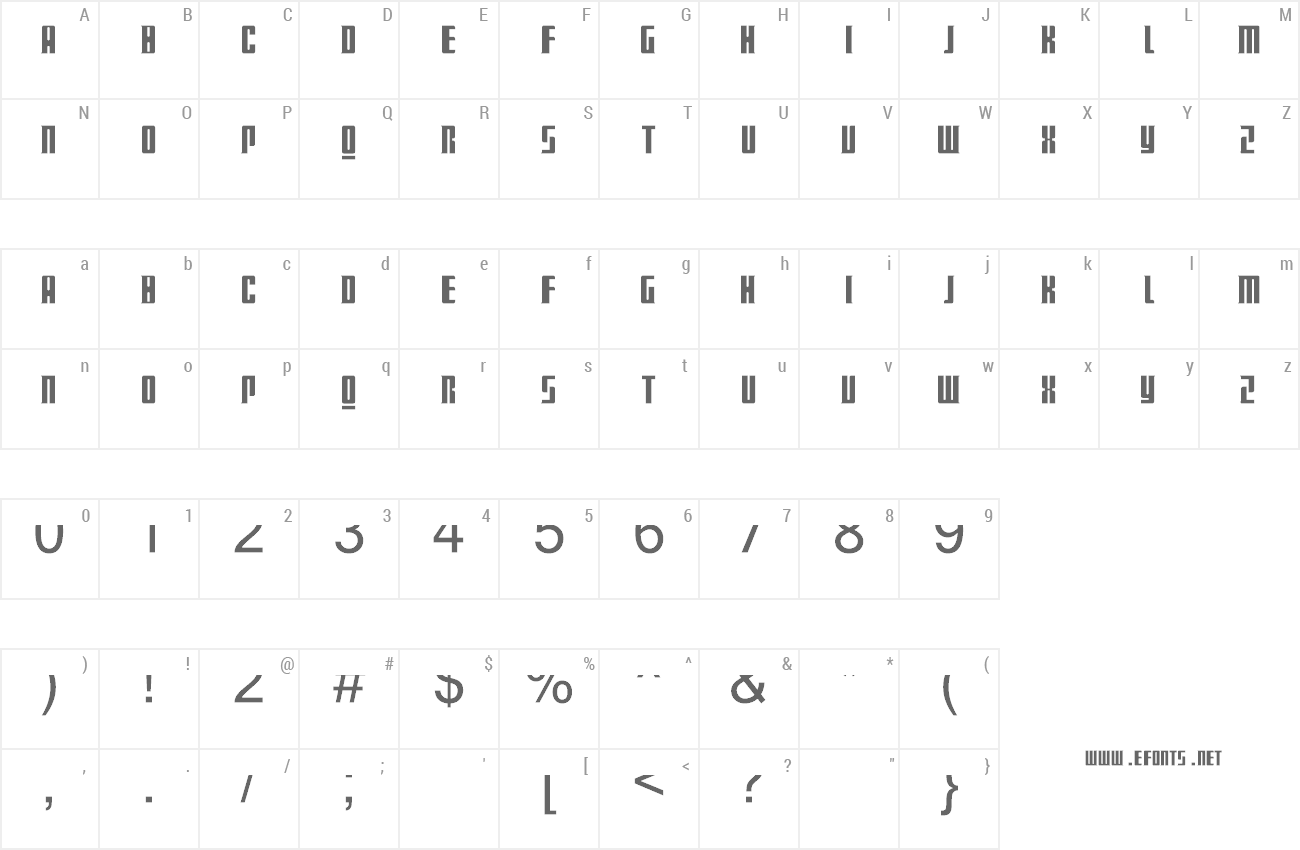
| Font name: | Matt Smith Doctor Who |
| Author: | thejamjar96 |
| Note by thejamjar96 | |
| i created it on fontstruct however it is a design by the BBC for the TV show 'Doctor Who' |